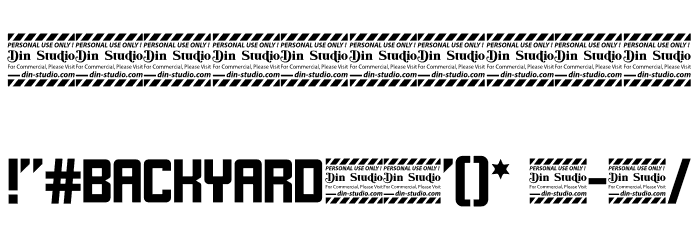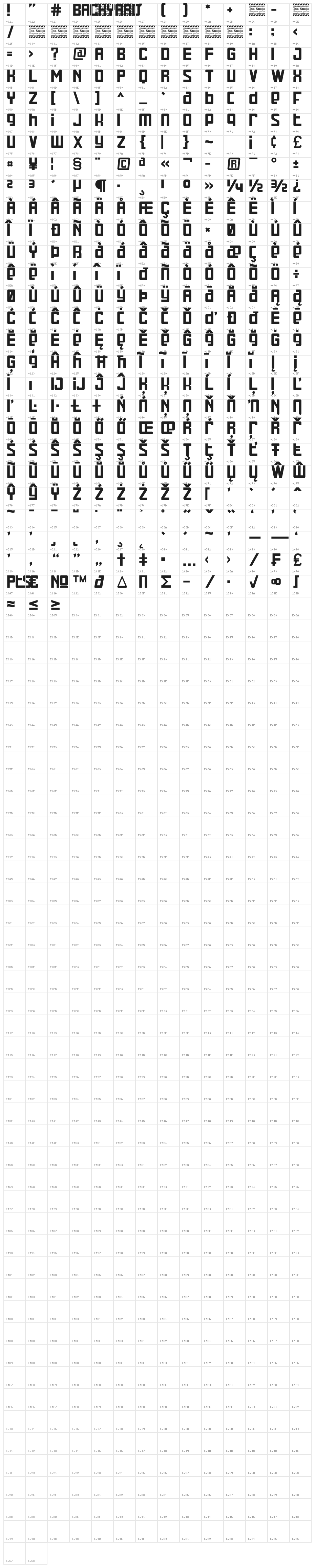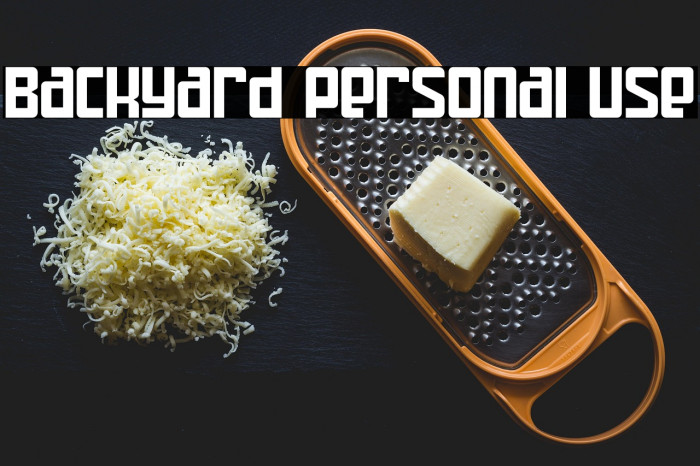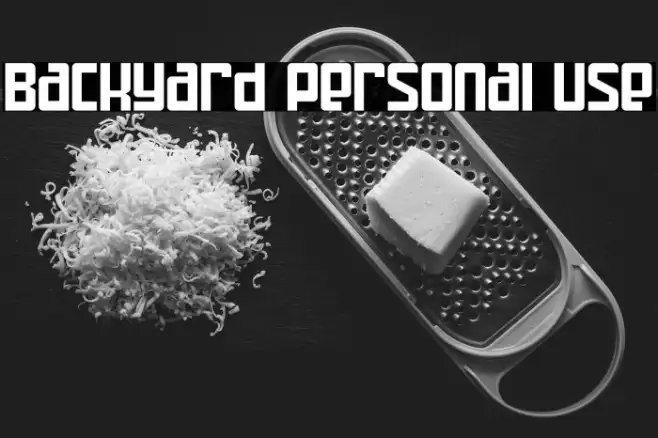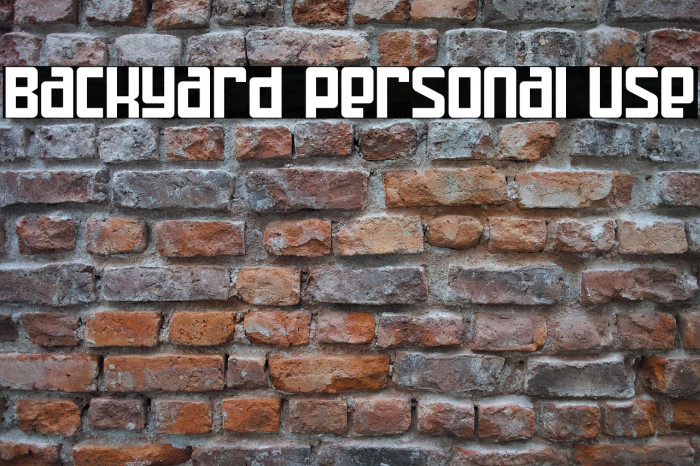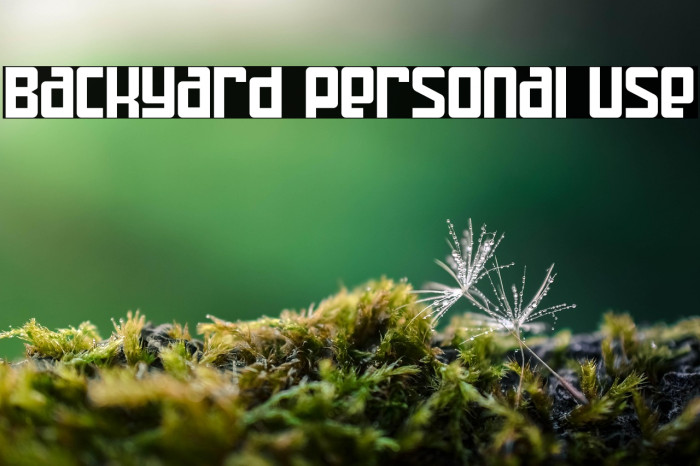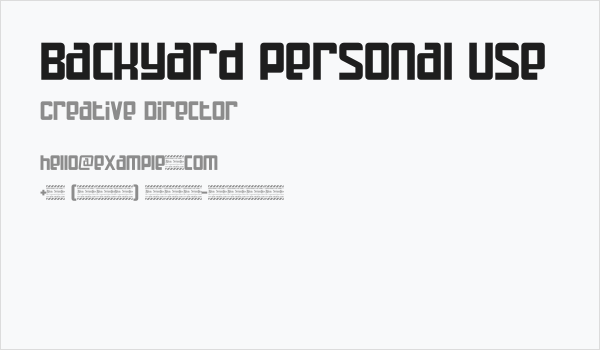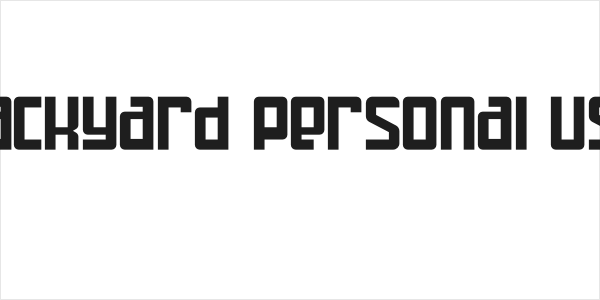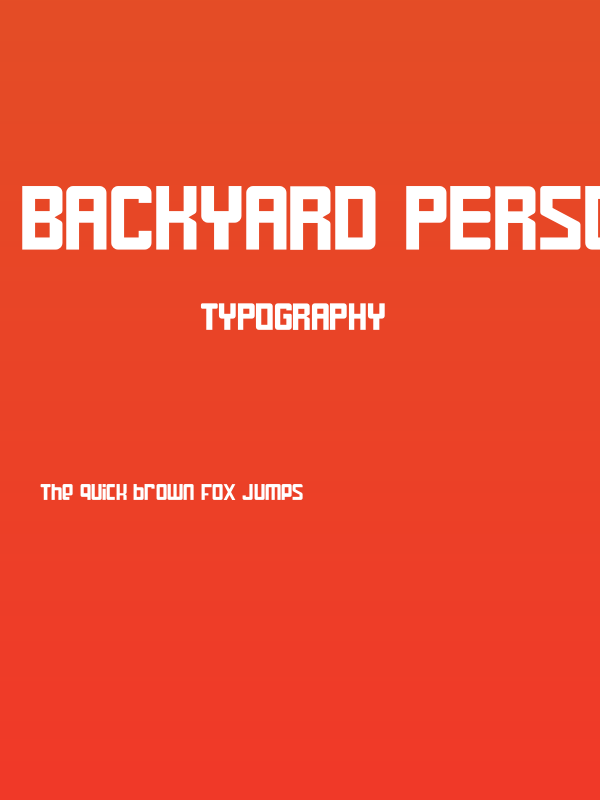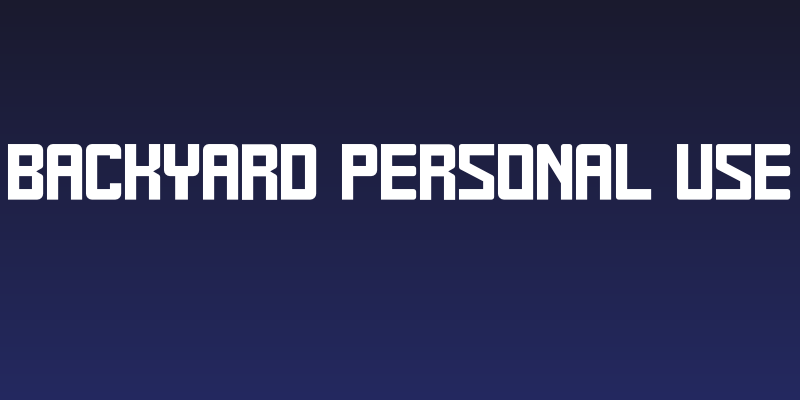
Backyard personal use Font
Backyard personal use Description
This font features a bold, geometric design with a modern and slightly futuristic aesthetic. The characters are constructed with thick, uniform strokes, giving them a strong and impactful presence. The uppercase and lowercase letters maintain a consistent style, with angular lines and sharp edges that create a cohesive look. The numbers and special characters follow the same design principles, ensuring uniformity across all glyphs. The font's structure is clean and straightforward, making it suitable for attention-grabbing headlines and titles. Its boldness and clarity make it ideal for projects that require a strong visual impact.
| Proposed Projects | Ideal for branding, posters, headlines, and digital media where a strong visual impact is needed. |